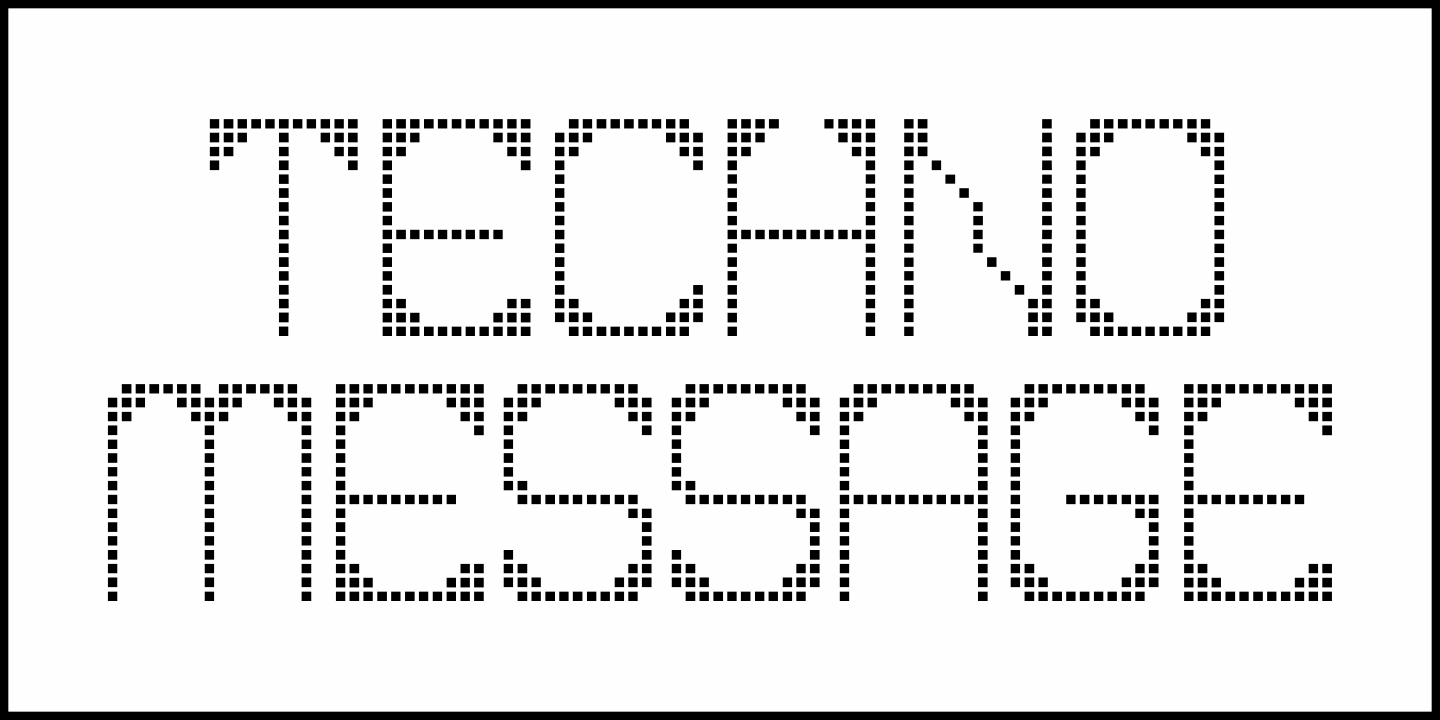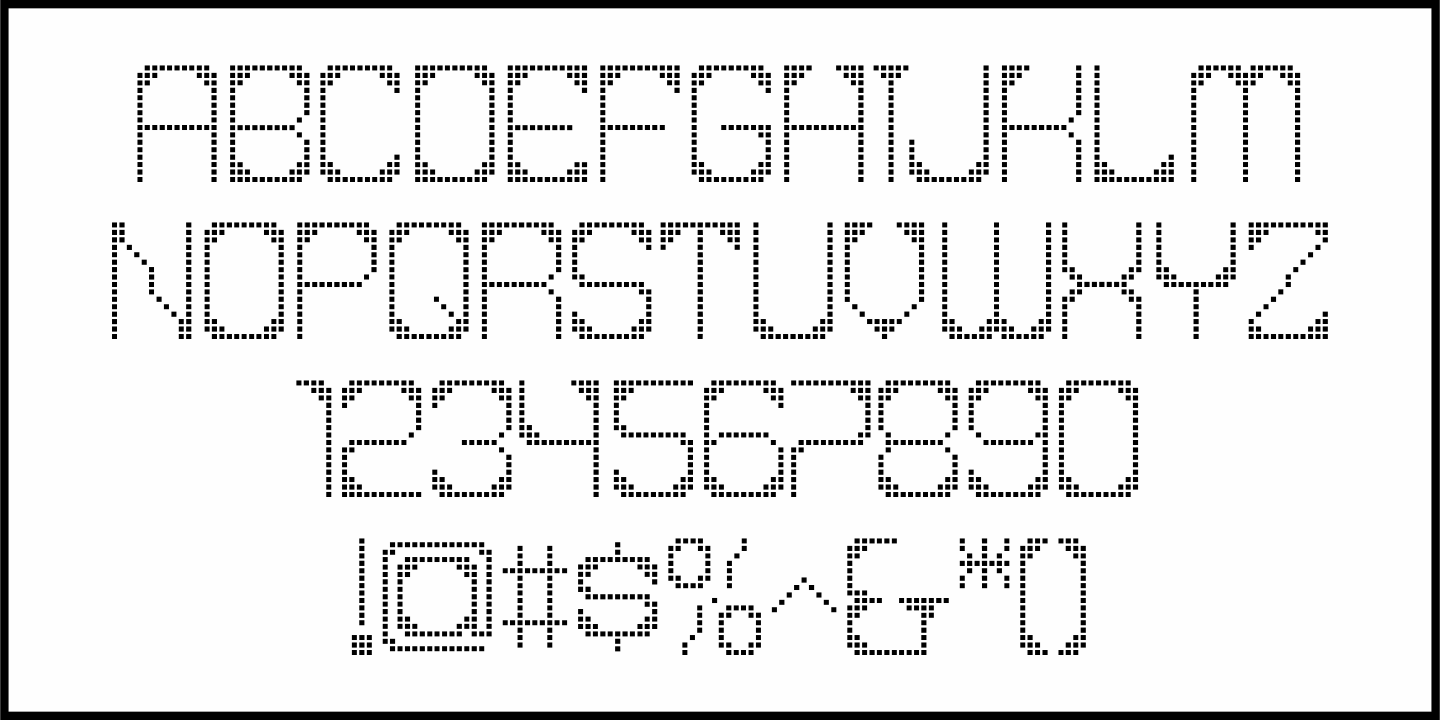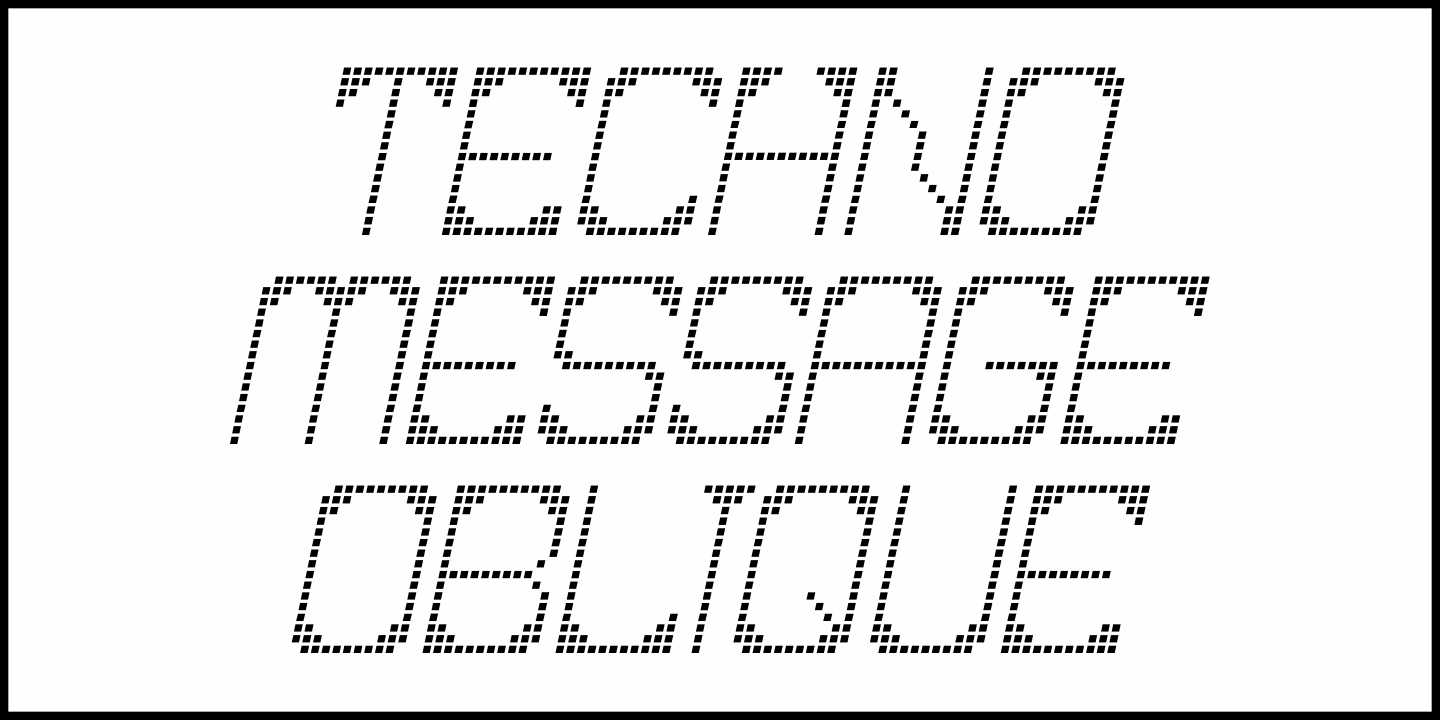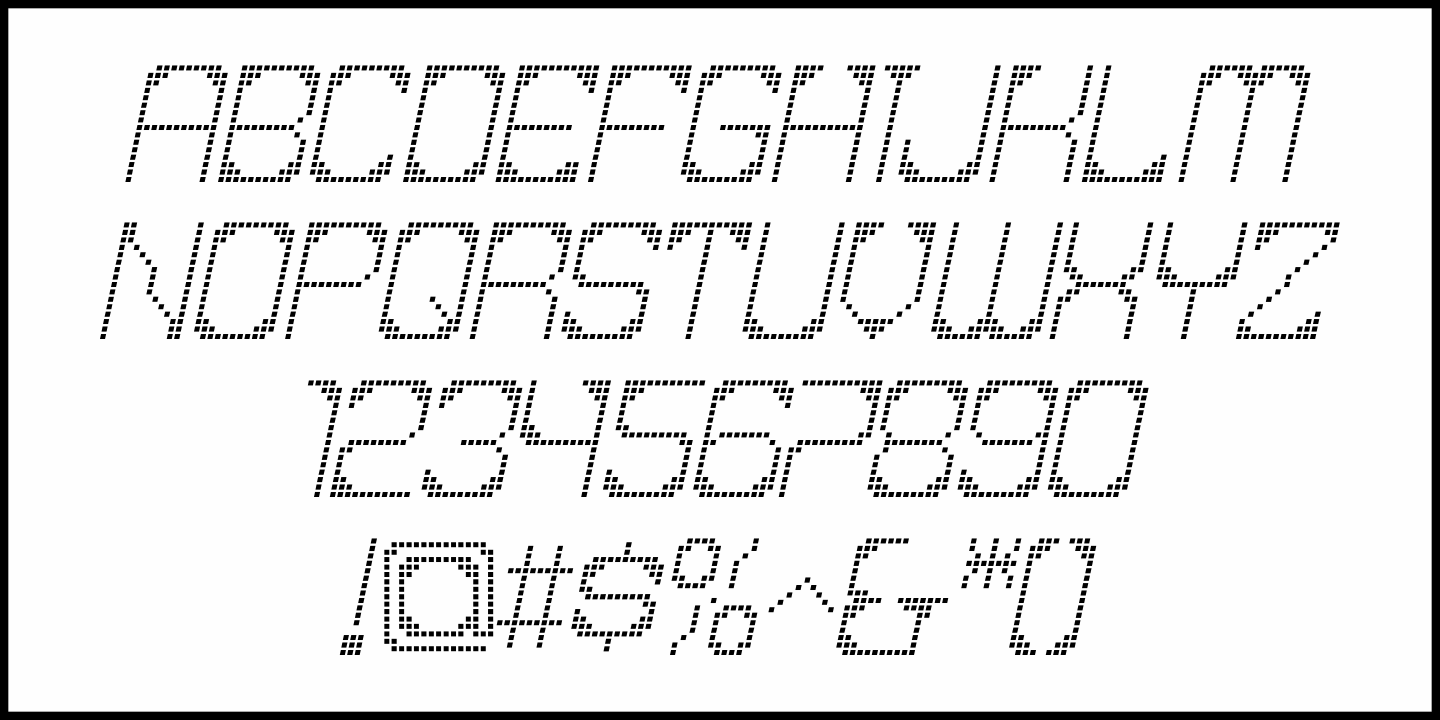
Techno Message
The most unusual font ever released by Jeff Levine Fonts came from a dream.
Within the subconscious imagery of sleep was a reader board - an electronic sign with moving messages. However, the typeface was no standard lettering in that digital display. It had a strange "techno" quality about it. Upon awakening, rough sketches were made and a preliminary character set was drawn out on January 4, 2024.
While not from an actual vintage source, the lettering takes on two distinct characateristics. Some will see the typeface as more resembling sampler or needlepoint work, while other will see a bit of a 1980s techno influence.
Either way you perceive it, Techno Message JNL is available in both regular and oblique versions.